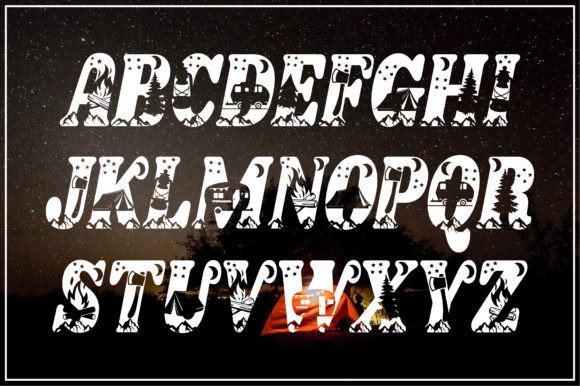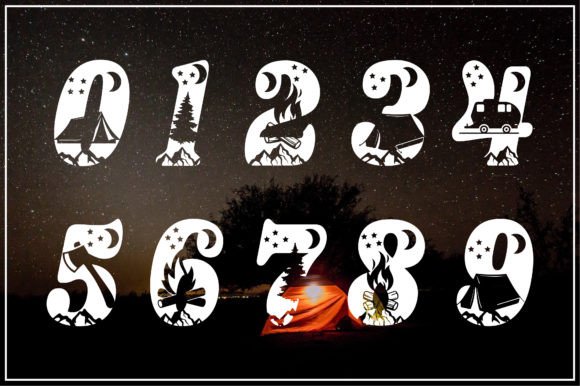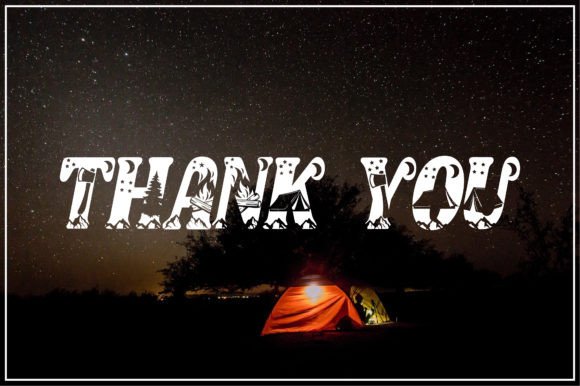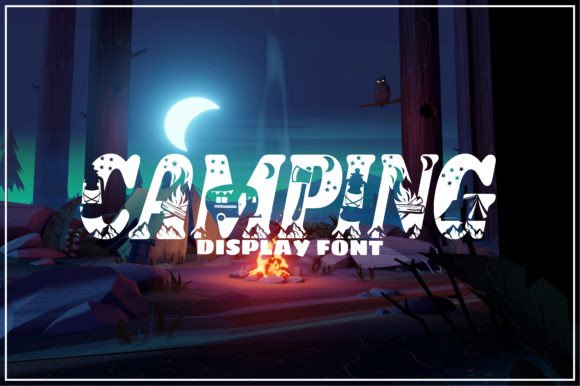
Camping Font: Elevate Your Designs with a Touch of Adventure
Are you a designer or crafter looking for a font that can add a touch of excitement and adventure to your projects? Look no further than the Camping Font! This dramatic decorative font is perfectly suitable for any design or crafty idea, and we’re excited to share its features and benefits with you.
What is Camping Font?
Camping Font is a unique and eye-catching typeface that is inspired by the great outdoors. Its bold and adventurous style makes it perfect for designs that require a touch of ruggedness and excitement. Whether you’re working on a project for a outdoor gear brand, a travel company, or simply want to add some personality to your craft projects, Camping Font is the perfect choice.
Key Features of Camping Font
- Dramatic and Decorative: Camping Font is a highly decorative font that adds a touch of drama to any design. Its bold and adventurous style makes it perfect for headlines, titles, and other design elements that require a bit of flair.
- Highly Versatile: This font is incredibly versatile and can be used for a wide range of design projects, from outdoor gear branding to craft projects, and everything in between.
- Easily Readable: Despite its bold and decorative style, Camping Font is still highly readable, making it perfect for use in a variety of contexts.
- Perfect for Crafty Ideas: If you’re a crafter looking for a font to add a personal touch to your projects, Camping Font is a great choice. It’s perfect for use in DIY tutorials, craft patterns, and other handmade projects.
How to Use Camping Font in Your Designs
Using Camping Font in your designs is easy! Here are a few ideas to get you started:
- Outdoor Gear Branding: Use Camping Font to create bold and eye-catching logos and branding materials for outdoor gear companies.
- Travel Brochures: Add a touch of adventure to your travel brochures and flyers with Camping Font.
- Craft Projects: Use Camping Font to add a personal touch to your craft projects, such as DIY tutorials and craft patterns.
- Signage: Camping Font is perfect for use in signage, such as directional signs, warning signs, and other outdoor signage.
Tips for Getting the Most Out of Camping Font
Here are a few tips for getting the most out of Camping Font:
- Experiment with Different Sizes: Camping Font looks great in a variety of sizes, from small and subtle to large and bold. Experiment with different sizes to find the one that works best for your design.
- Pair it with Other Fonts: Camping Font pairs well with a variety of other fonts, from simple sans serifs to more decorative script fonts. Experiment with different pairings to find the one that works best for your design.
- Use it to Create Contrast: Camping Font is a bold and eye-catching font, making it perfect for use in designs where you want to create contrast. Use it to draw attention to a particular element of your design.
Camping Font is a unique and versatile font that is perfect for designers and crafters looking to add a touch of adventure and excitement to their projects. With its bold and decorative style, it’s perfect for use in a wide range of design contexts, from outdoor gear branding to craft projects. So why not give it a try and see the difference it can make in your designs?